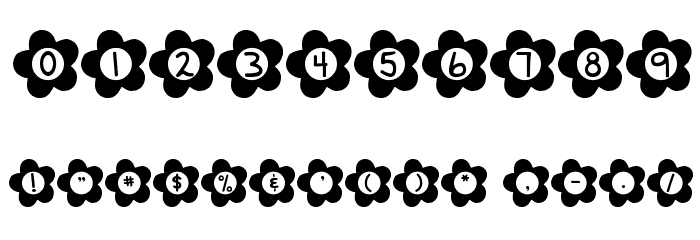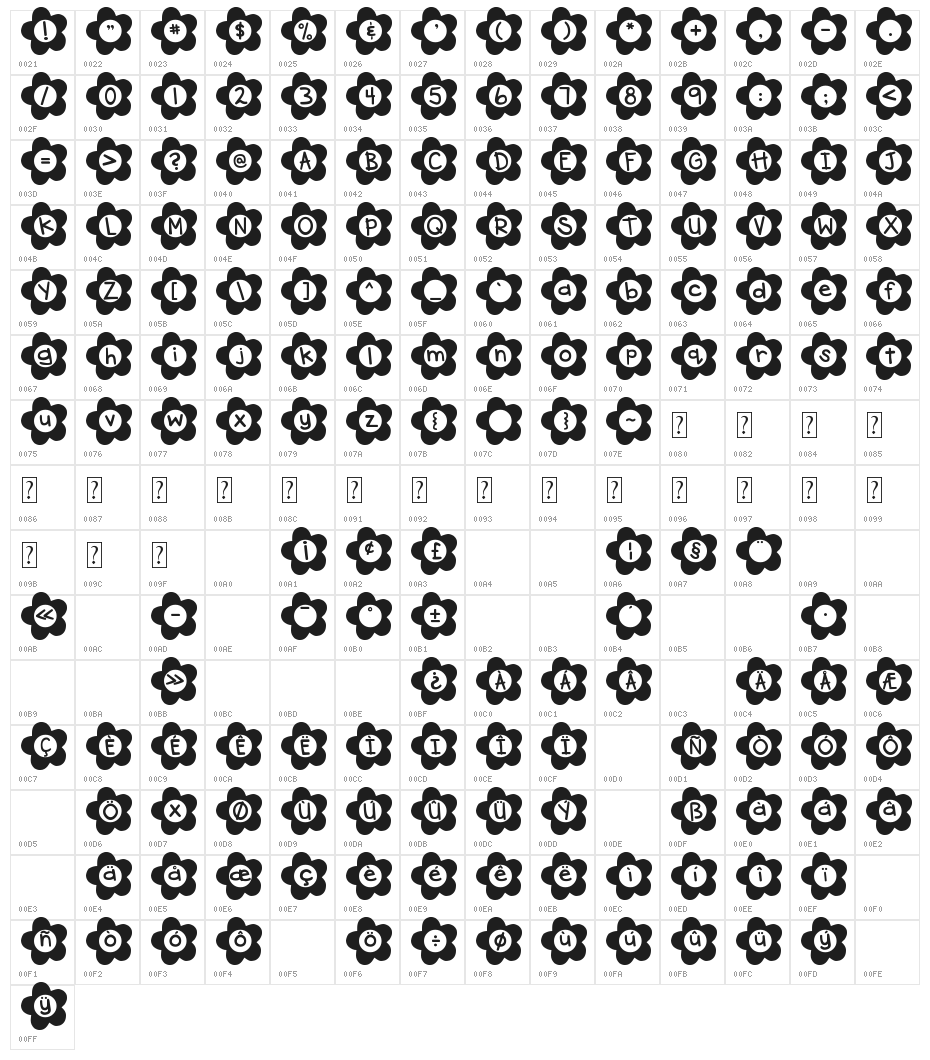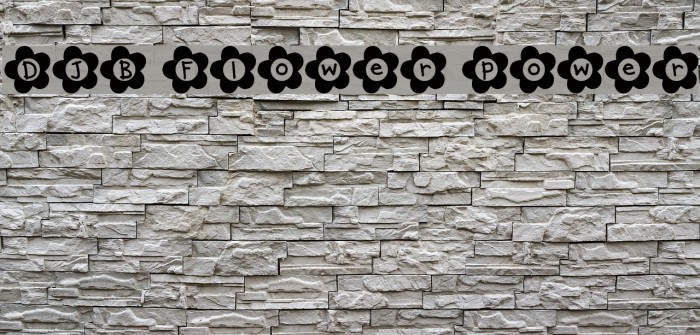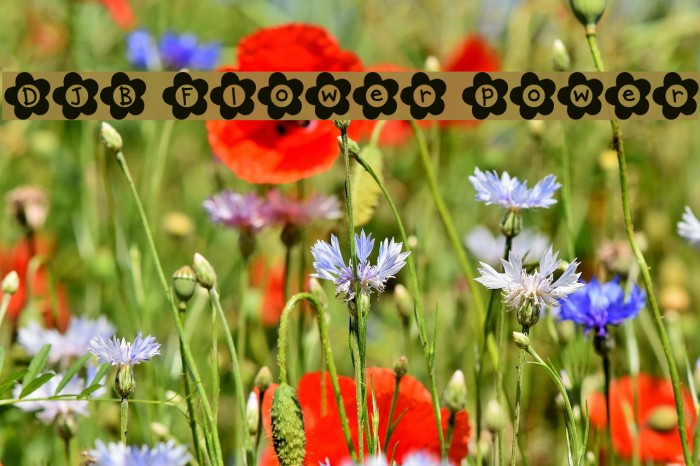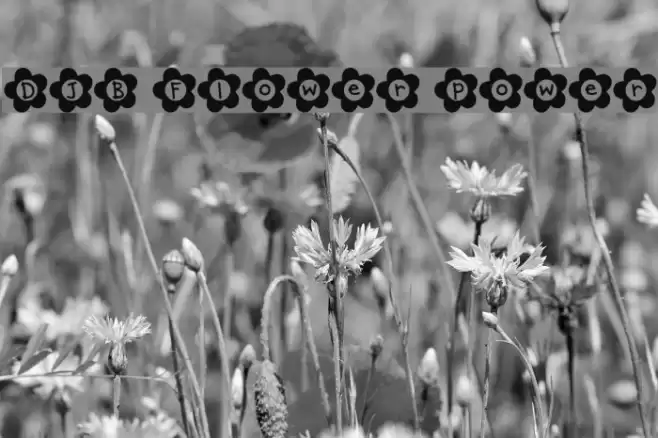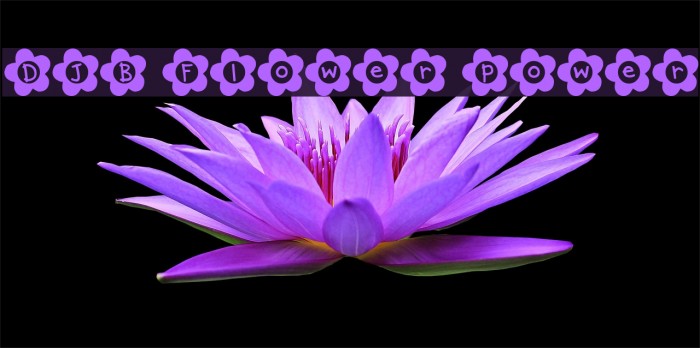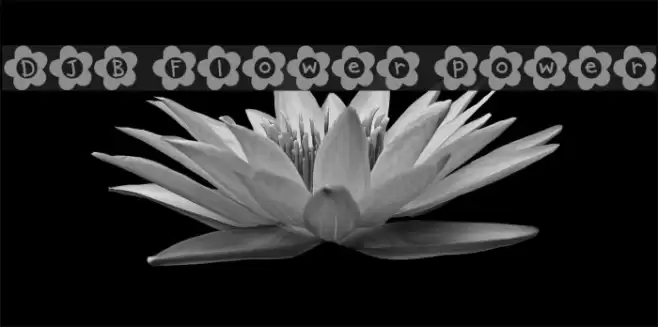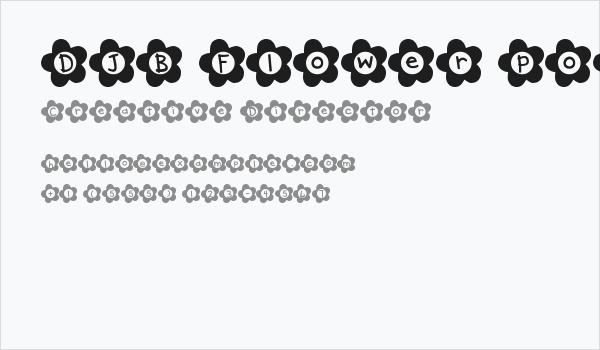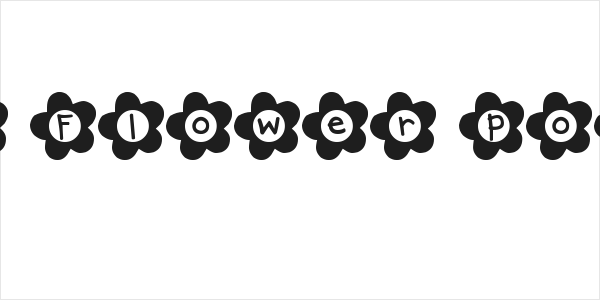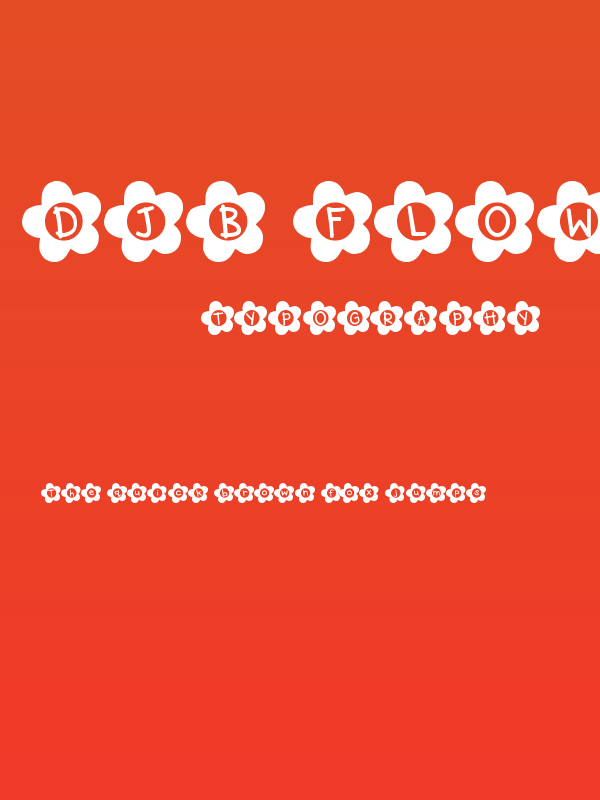
DJB Flower Power Font
DJB Flower Power Description
This playful and decorative font features each character encased within a flower shape, creating a whimsical and fun aesthetic. The letters and numbers are bold and rounded, providing a friendly and approachable feel. The consistent use of flower outlines around each character adds a unique and cohesive design element, making it ideal for projects that require a touch of creativity and charm. The font maintains readability despite its decorative nature, ensuring that the text remains clear and engaging. Its distinctive style is perfect for capturing attention and adding a playful vibe to any design.
| Proposed Projects | Ideal for children's books, playful invitations, greeting cards, and creative branding projects. |